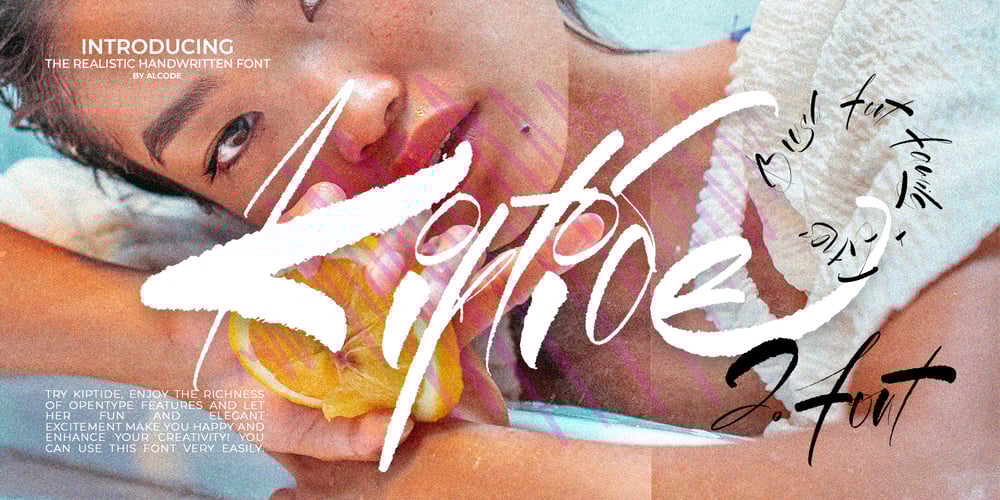
Kiptide
Kiptide font
Kiptide Font Family was designed by Sukjana Almunandar and published by Alcode. Kiptide contains 3 styles and family package options. Kiptide is a organic handwritted font inspired by natural brush typography. Written in rapid motion using a slightly dry brush pen. This will give you a fresh and elegant design. Kiptide comes with uppercase and lowercase sets, numbers, alternative styles for some lowercase characters are also available which make your text and designs more attractive.